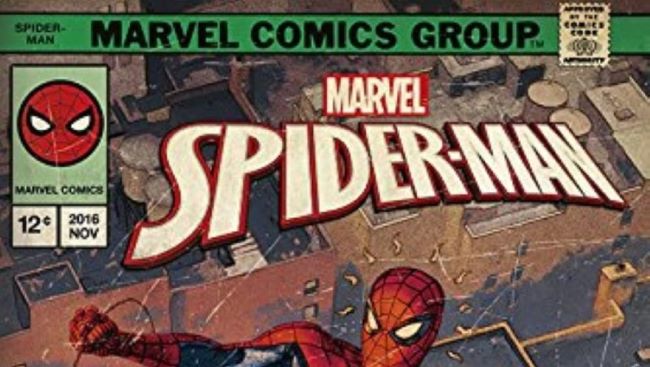
The Spider Man Font has become one of the most iconic typefaces in superhero design. This distinctive lettering captures the web-slinger’s dynamic energy perfectly, making it instantly recognizable to fans worldwide.
Spider-Man Font
Spider-Man Movie Font
Introduced during Sam Raimi’s early 2000s trilogy, the Spider Man Font features sharp, futuristic styling that embodies Marvel’s beloved hero. Each film adaptation—from The Amazing Spider Man series to the MCU—has used variations while maintaining the original’s essence.
Though Marvel never officially released this typeface, fan-made versions like the Spider Man Font Movie edition accurately replicate the classic look. This typography appears in countless posters, fan art, and creative projects.
The Spider Man Font demonstrates how lettering can become as legendary as the character itself, continuing to inspire designers seeking that authentic superhero aesthetic for their work.